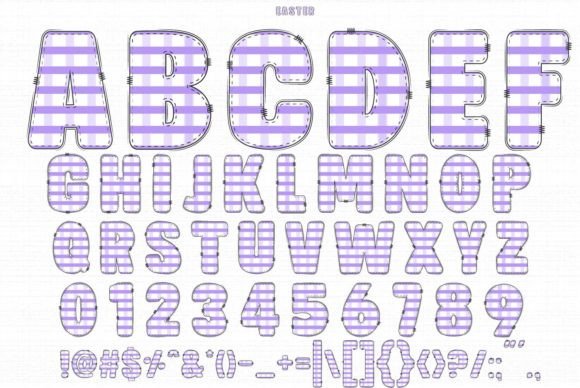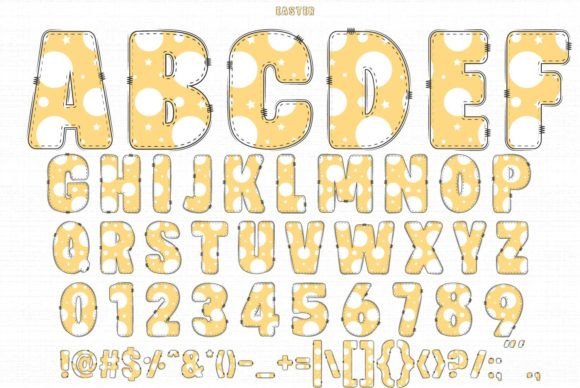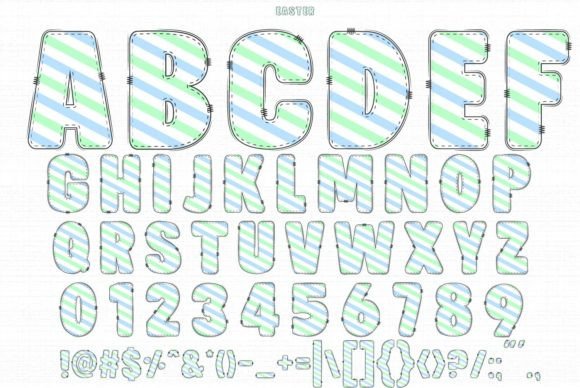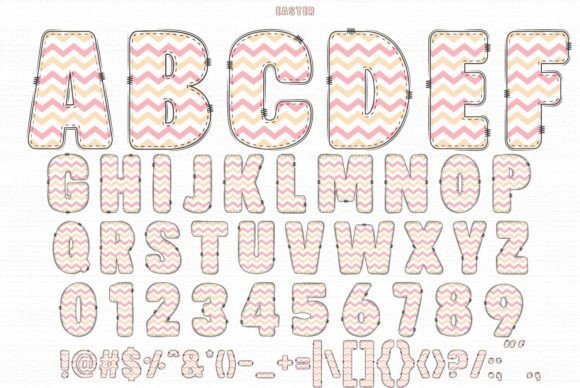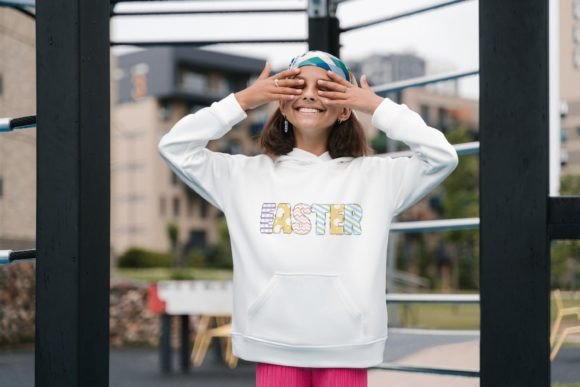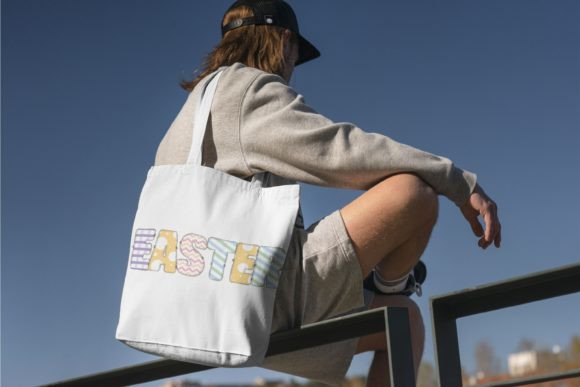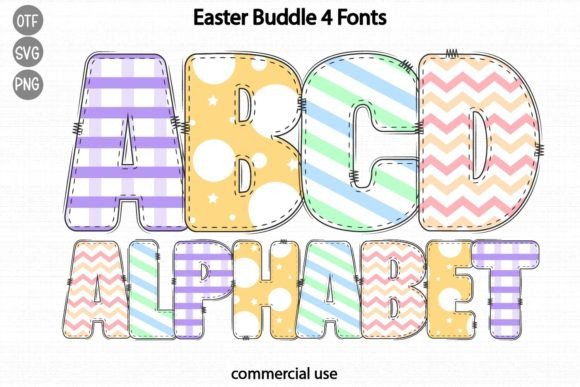
Easter Font: Add a Pop of Color to Your Designs
Easter is just around the corner, and what better way to celebrate than with a bold, fun, and attractive font that energizes your designs with vibrant hues? Look no further than the Easter Font, ideal for headlines, logos, and social media graphics. This unique and fun colored font is perfect for designers and crafters looking to add a touch of personality to their projects.
What is Easter Font?
The Easter Font is a one-of-a-kind, multi-colored font that adds a burst of energy to any design. With its bold and playful style, it’s perfect for creating eye-catching headlines, logos, and social media graphics. The font comes in a range of vibrant colors, allowing you to choose the perfect hue to match your brand or design aesthetic.
Key Features of Easter Font
• Bold and Fun Design: The Easter Font features a bold and playful design that’s sure to grab attention.
• Vibrant Colors: Choose from a range of vibrant colors to create a bold statement in your designs.
• Ideal for Headlines and Logos: The Easter Font is perfect for creating eye-catching headlines, logos, and social media graphics.
The Easter Font offers a range of benefits for designers and crafters, including:
• Customizable: With a range of vibrant colors to choose from, you can customize the Easter Font to match your brand or design aesthetic.
• Unique and Fun: The Easter Font adds a touch of personality to your designs, making them stand out from the crowd.
• Experiment with Different Colors: Try out different colors and combinations to find the perfect look for your design.
• Use in Combination with Other Fonts: The Easter Font pairs well with other fonts, so don’t be afraid to experiment with different combinations.
• Pay Attention to Legibility: Make sure to choose a color combination that’s easy to read and understand.
The Easter Font is a unique and fun colored font that’s perfect for designers and crafters looking to add a touch of personality to their projects. With its bold and playful style, range of vibrant colors, and compatibility with popular design programs, it’s an excellent choice for anyone looking to create eye-catching designs. So why wait? Download the Easter Font today and start creating stunning designs that pop!